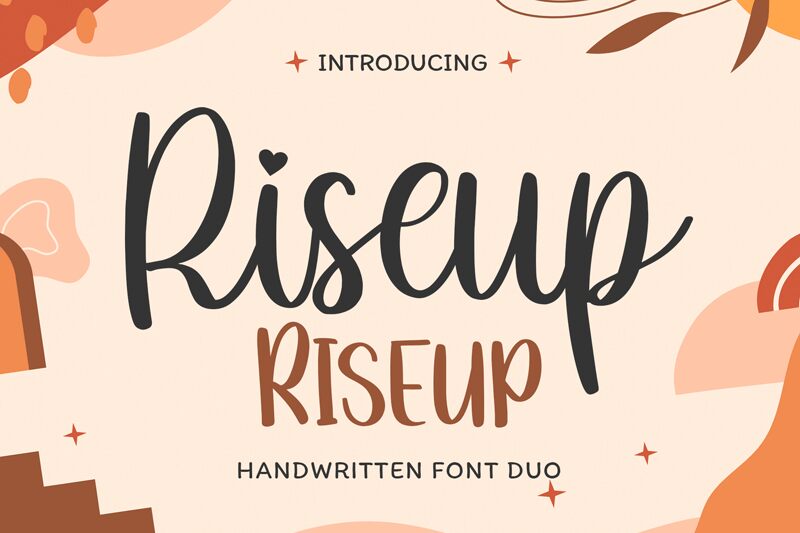
Riseup, a mesmerizing calligraphy font by Bearytype, effortlessly blends elegance and modernity. Its semi-light weight adds a delicate touch to any project, while the semi-condensed width ensures legibility without compromising style. Ideal for wedding invitations, luxurious branding materials, and sophisticated packaging designs, Riseup exudes refined beauty. Whether you're seeking to captivate your audience with a graceful logo or create stunning headlines that demand attention, this font will elevate your creations to new heights. Let Riseup's flowing curves and unique charm infuse your next project with timeless sophistication.